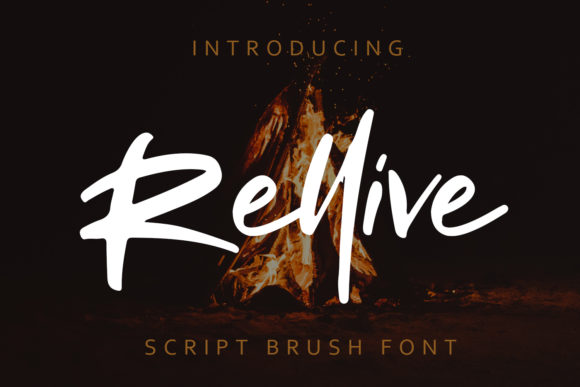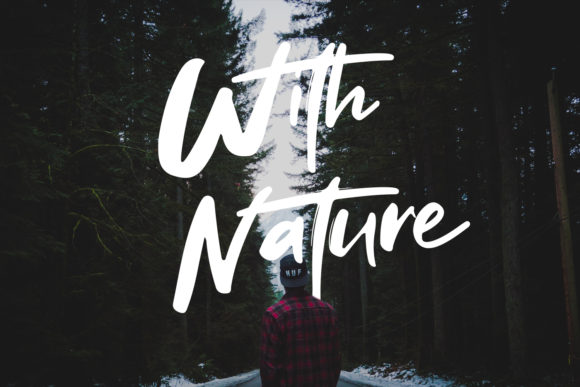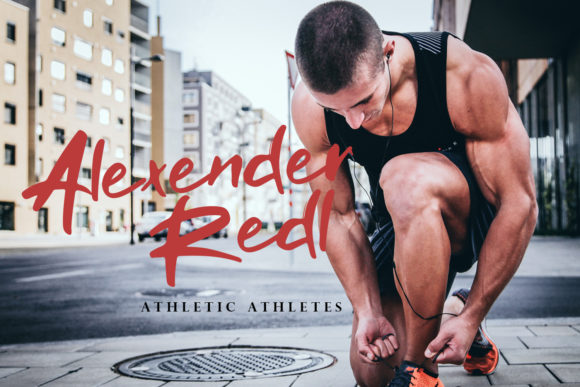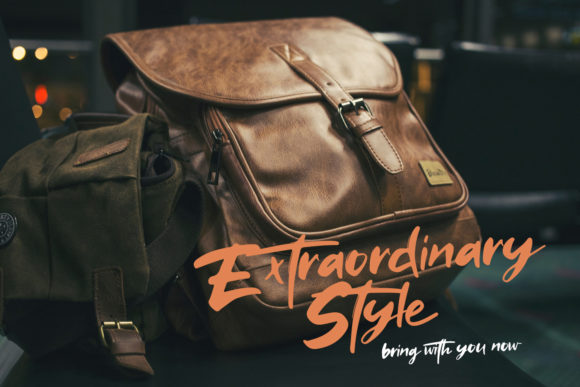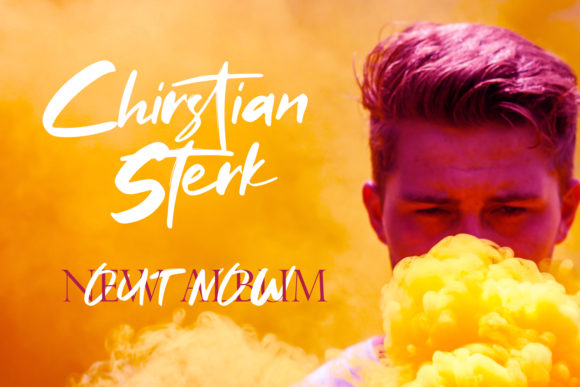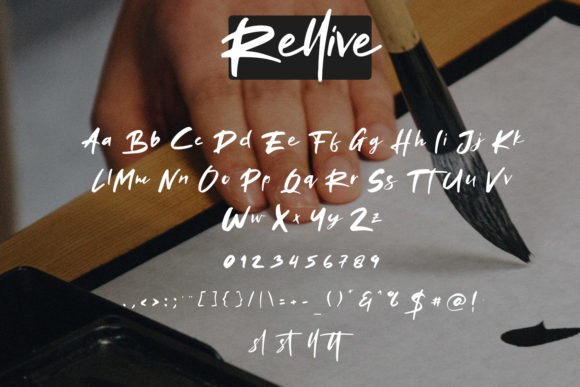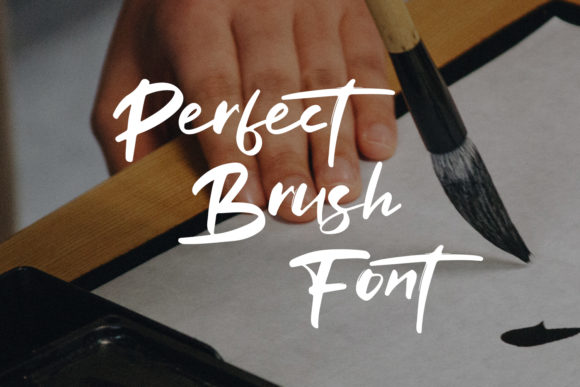
HomeScript FontsRellive Font Script Fonts Rellive Font FacebookXPinterestWhatsApp Rellive Font Poster 2 Rellive Font Poster 3 Rellive Font Poster 4 Rellive Font Poster 5 Rellive Font Poster 6 Rellive Font Poster 7 About Rellive Font Rellive is a cool and sharp script with a distinct look. Use it to add an adventurous feel to any design! DOWNLOAD ON CREATIVE FABRICAThis font is sold and delivered by Creative Fabrica. Font Canyon may earn a commission if you buy through this link. People also explored Katty Font Seydou Font Secretsoul Monoline Font Noah Font Rachel Bowie Font California Dreaming Font Duo Blusso Font Baby Cat Font Beverage Font 397 0 TagsRellive Font Previous articleSilverstone FontNext articleMinistry Font LEAVE A REPLY Cancel reply Comment: Please enter your comment! Name:* Please enter your name here Email:* You have entered an incorrect email address! Please enter your email address here Website: Save my name, email, and website in this browser for the next time I comment. Personal Use Free Bosk Personal Use Free Read more about this font Rosebirth Personal Use Free Read more about this font Monogram Veg Personal Use Free Read more about this font Bridgetown Font Personal Use Free Read more about this font BLOG Fonts That Capture the Spirit of New York City New York City is more than just a place—it’s an experience, a rhythm, a visual language... The 10 Best Handwriting Fonts to Add Personality to Your Designs Free vs Paid Fonts: Why Investing in Premium Fonts Is Worth It Exploring Font Trends